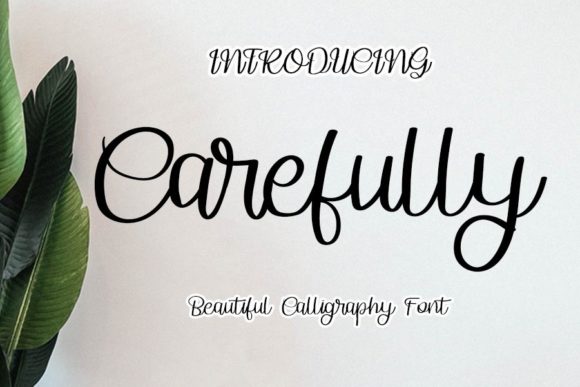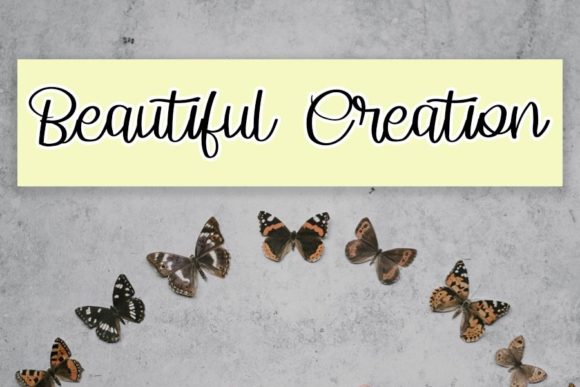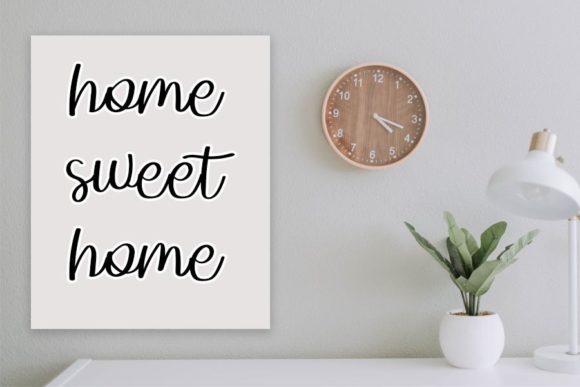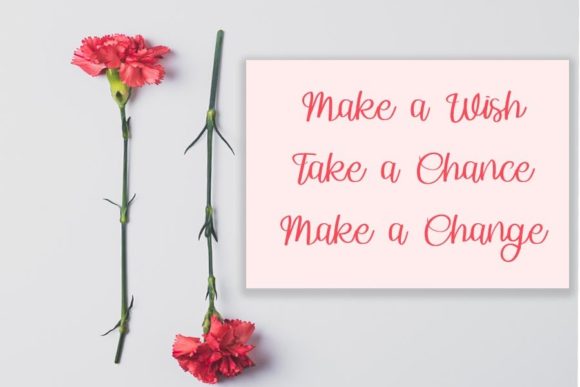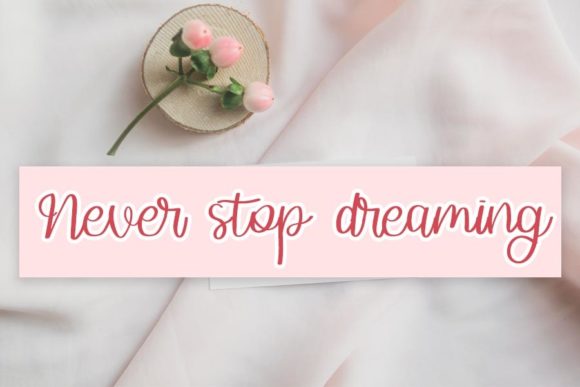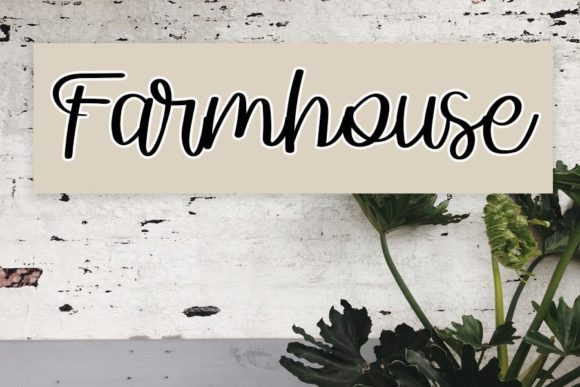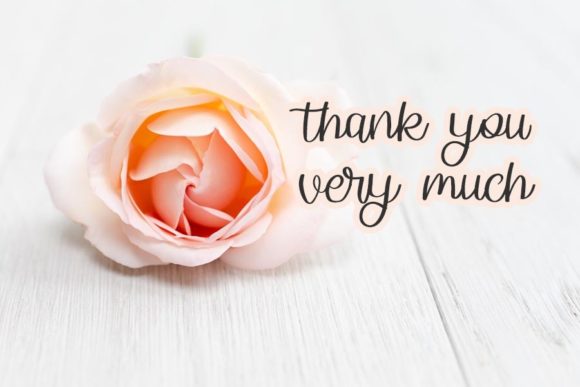
Carefully Font
About Carefully Font
Carefully is a beautifully crafted handwritten font. This gentle font will look gorgeous on a variety of design ideas. It will add a joyful and romantic touch to each of your projects!